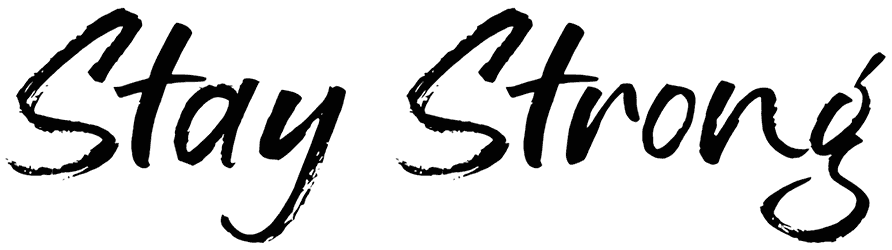
Stay Strong Font
Don’t lose this chance to present a cool street art layout with this brush font. Stay Strong could be an attractive illustration for various novel designs such as posters, apparel, invitation cards, and many others like. You can set this chalboard font on your coming design and leave a nice impression.